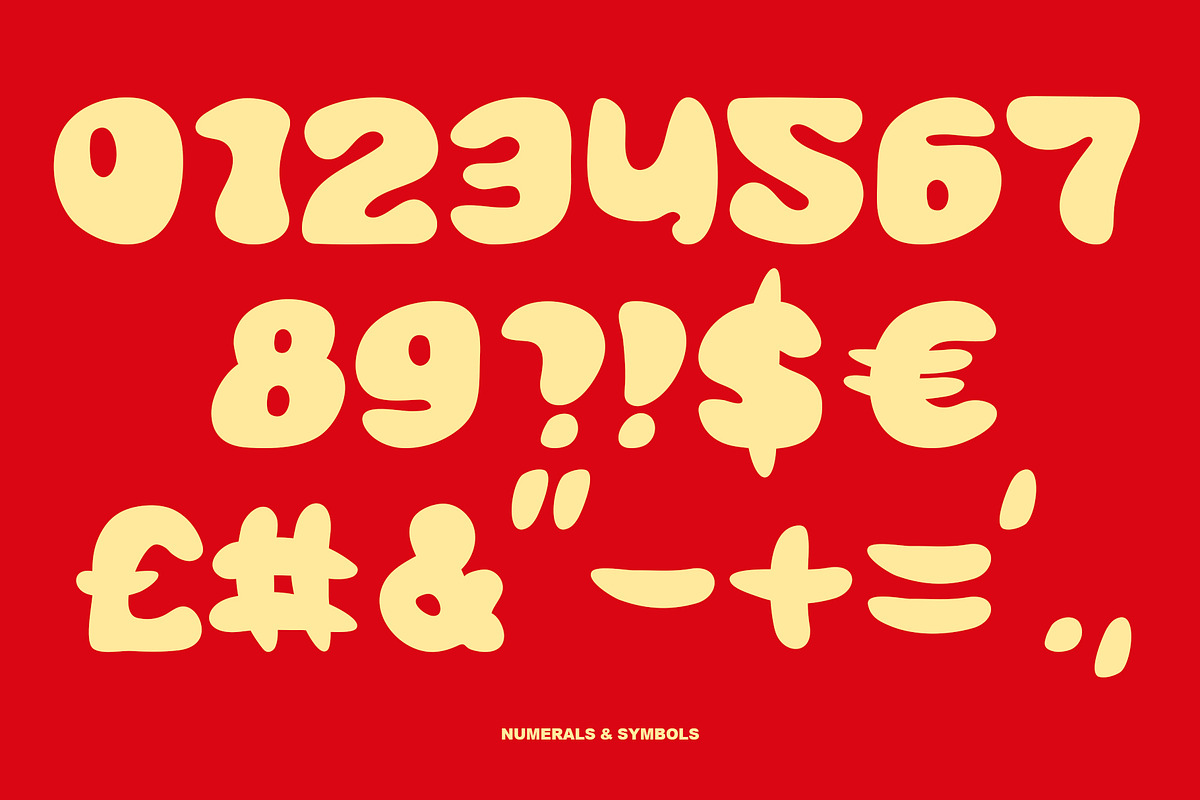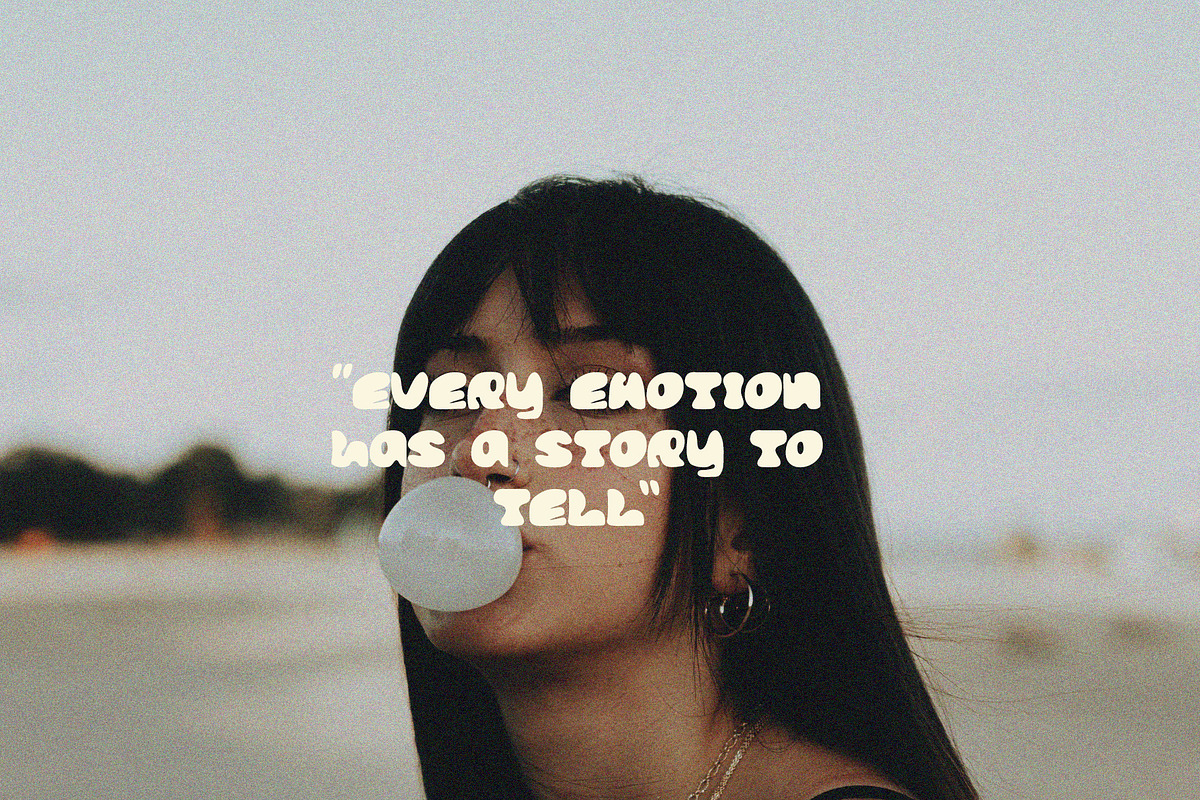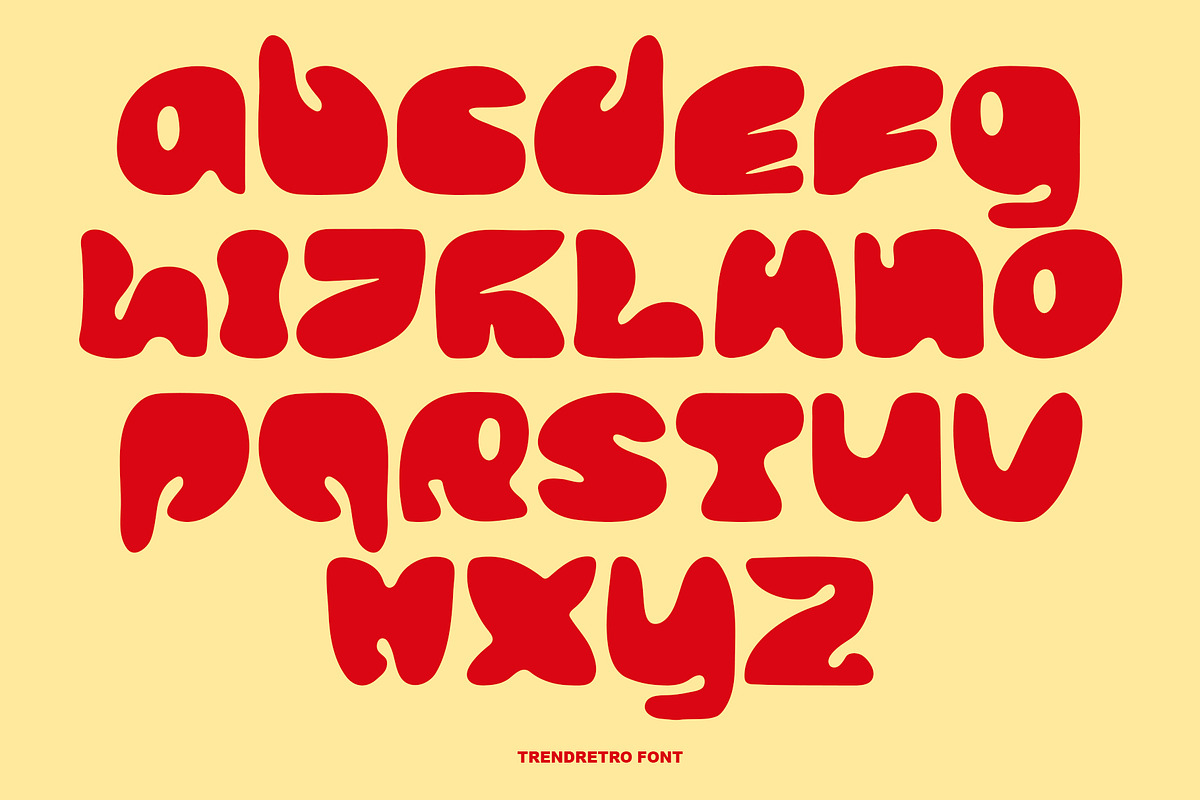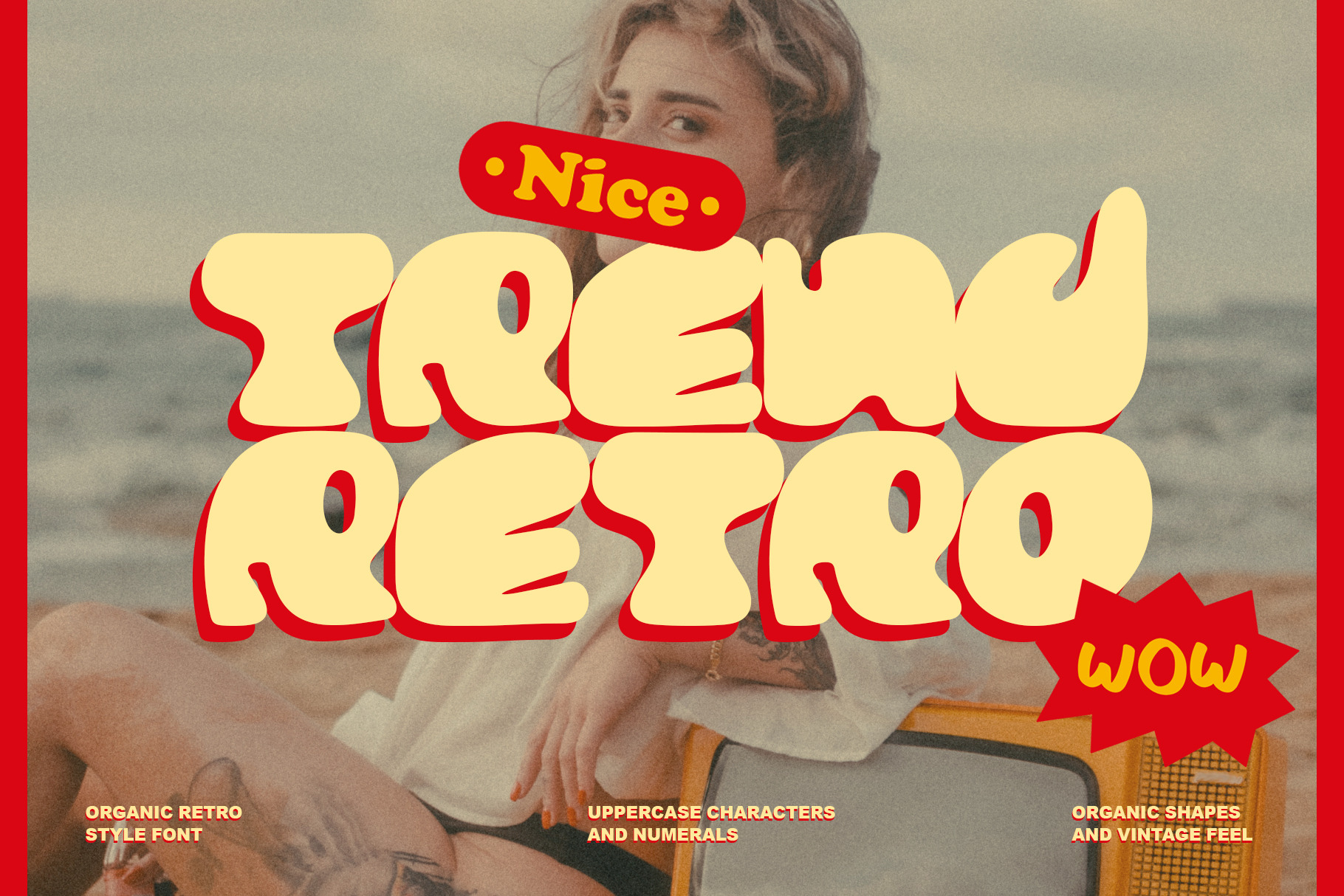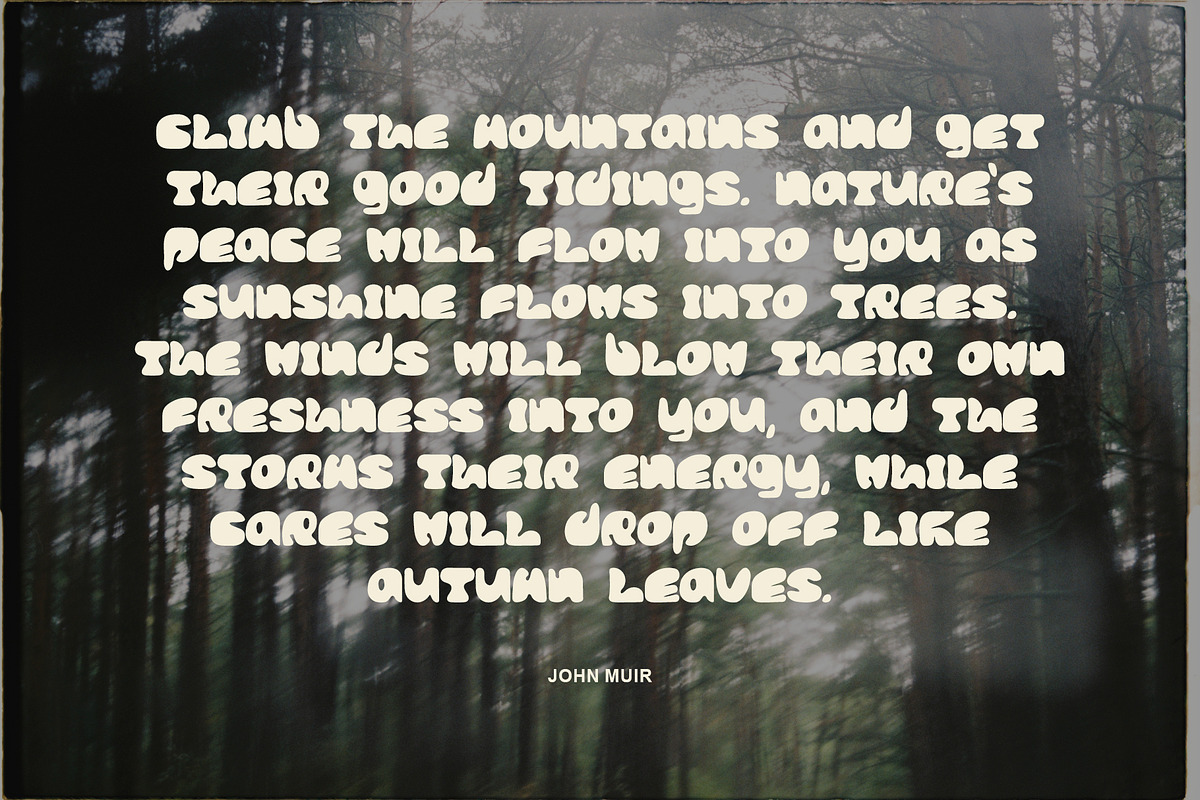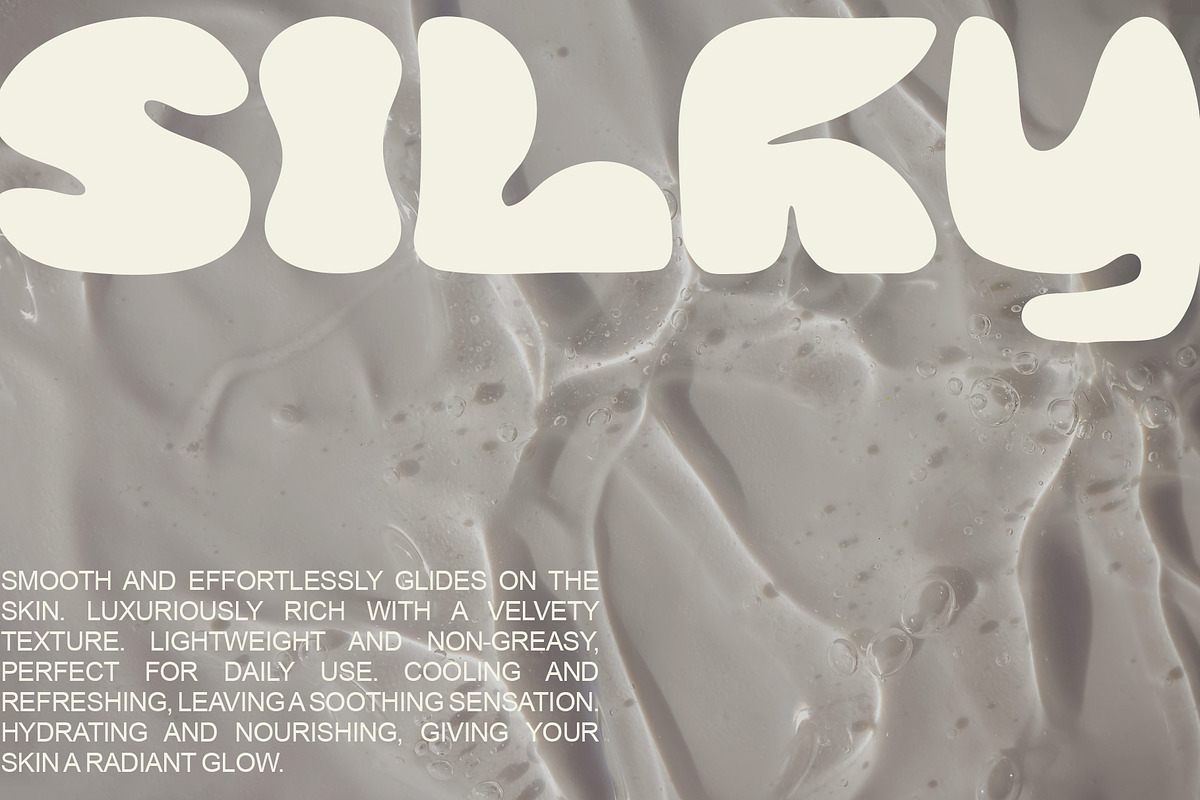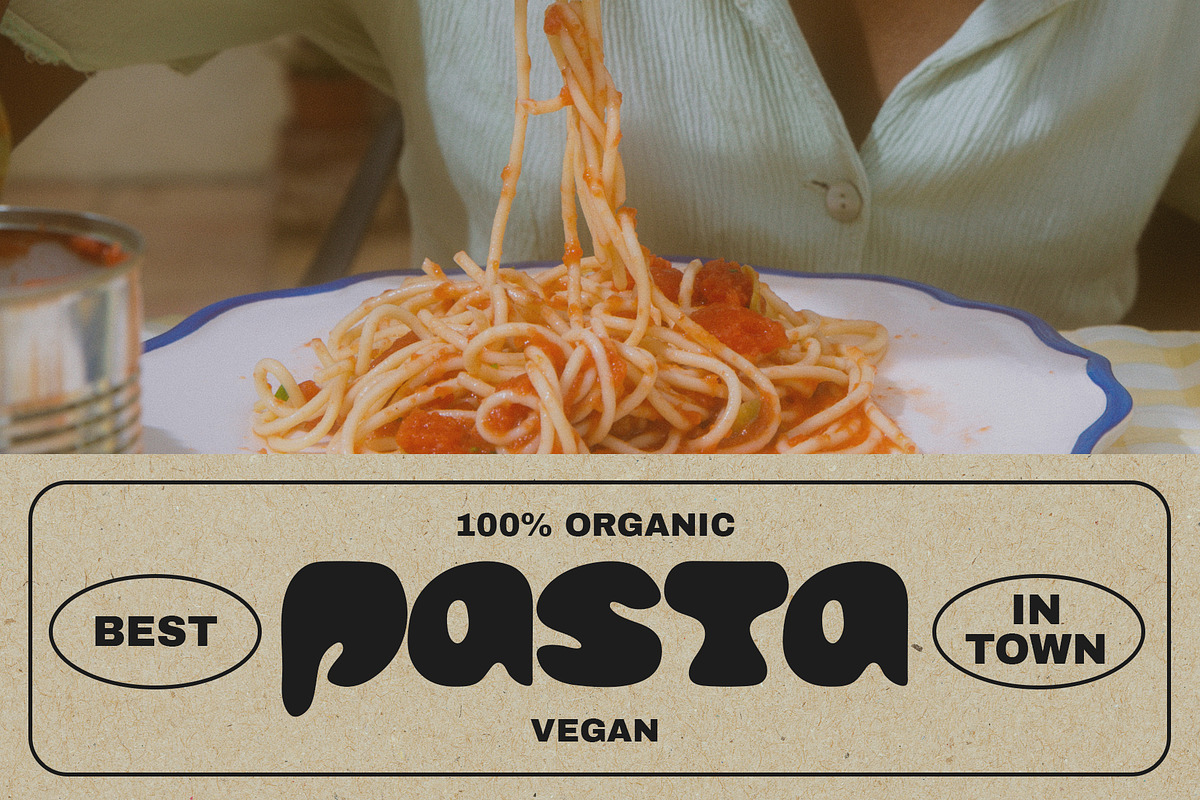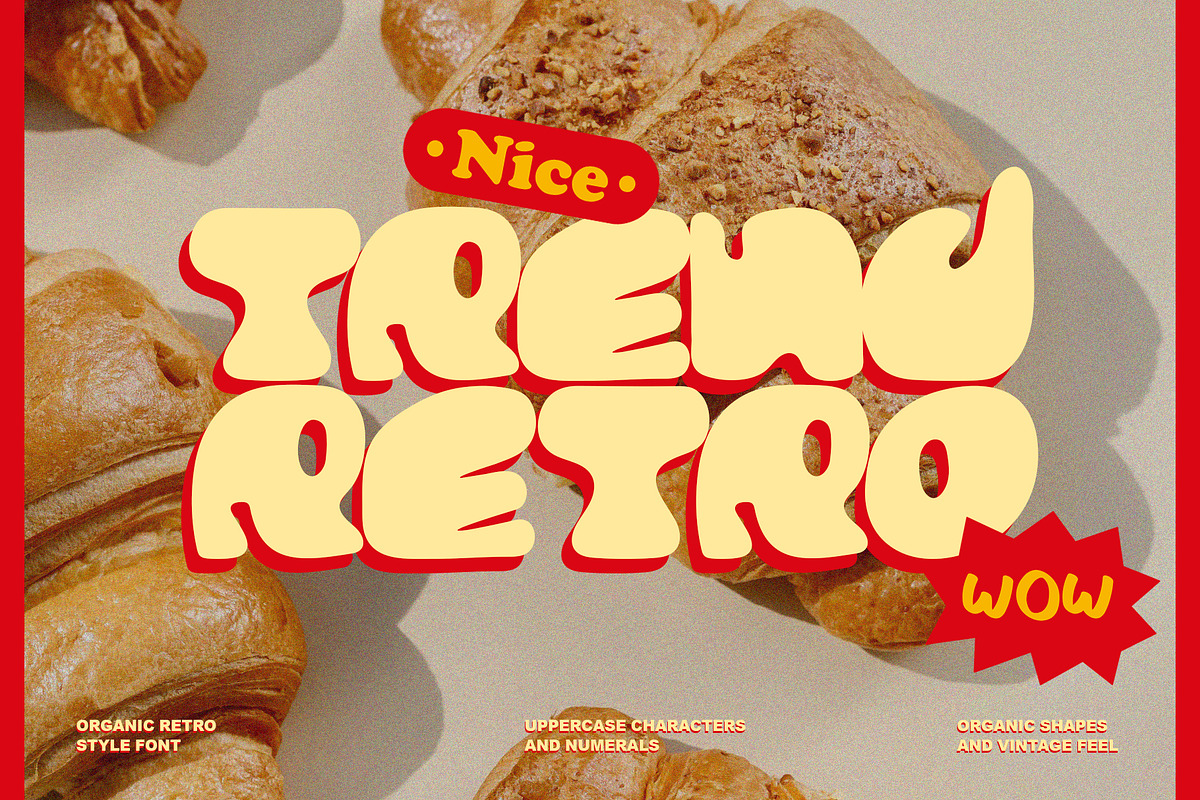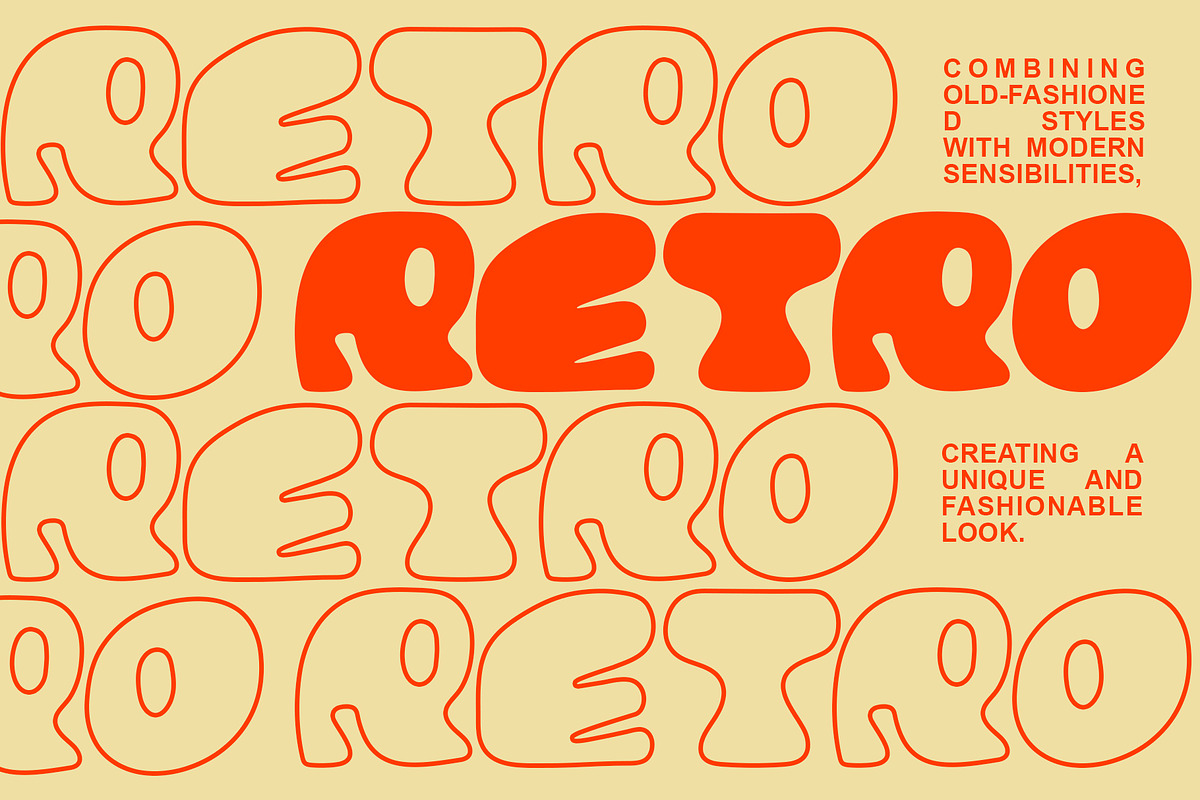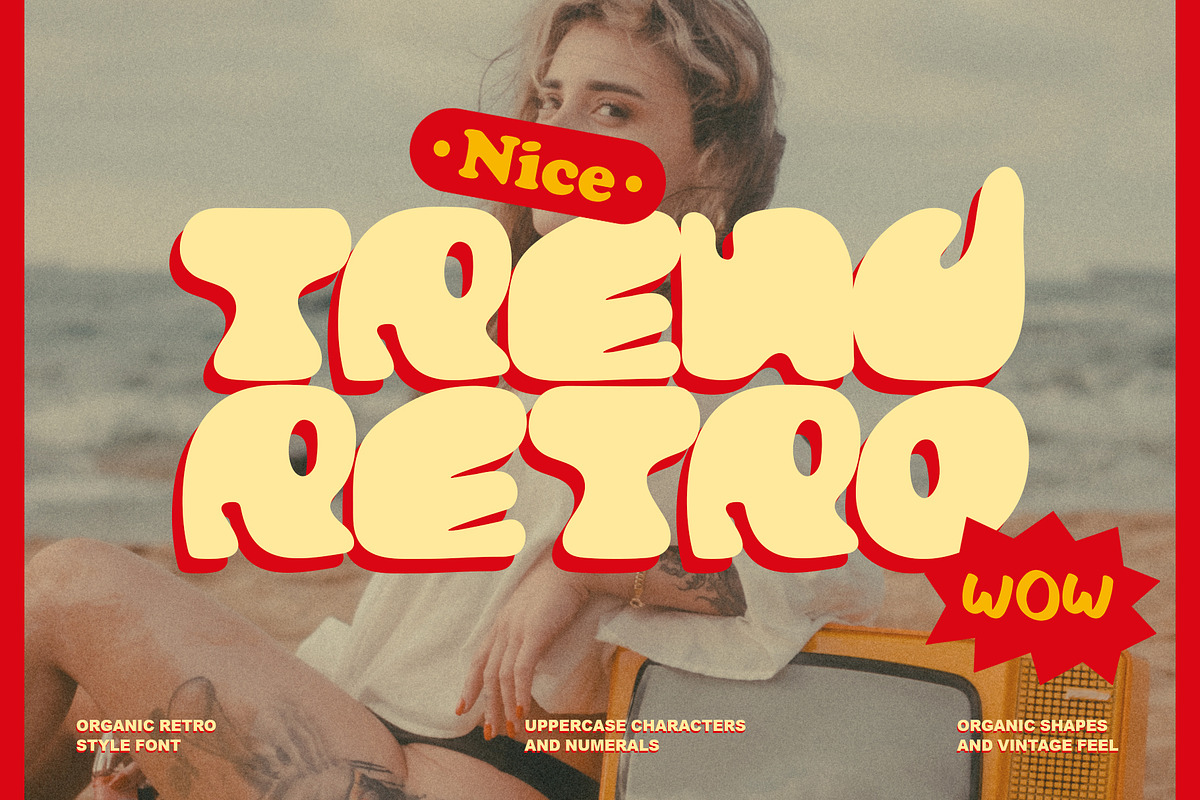
Trendretro - 80s & 90s Display Font
Trendretro - unique typeface blends the charm of retro design with the fluidity of organic forms. Each letter is crafted with smooth, natural curves and flowing lines, reminiscent of hand-drawn artistry. The organic shapes give it a dynamic and lively feel, making it perfect for projects that seek to evoke a sense of nostalgia while maintaining a fresh and modern twist. Whether used in logos, posters, or branding, this retro font with organic shapes adds a touch of timeless elegance and creativity.